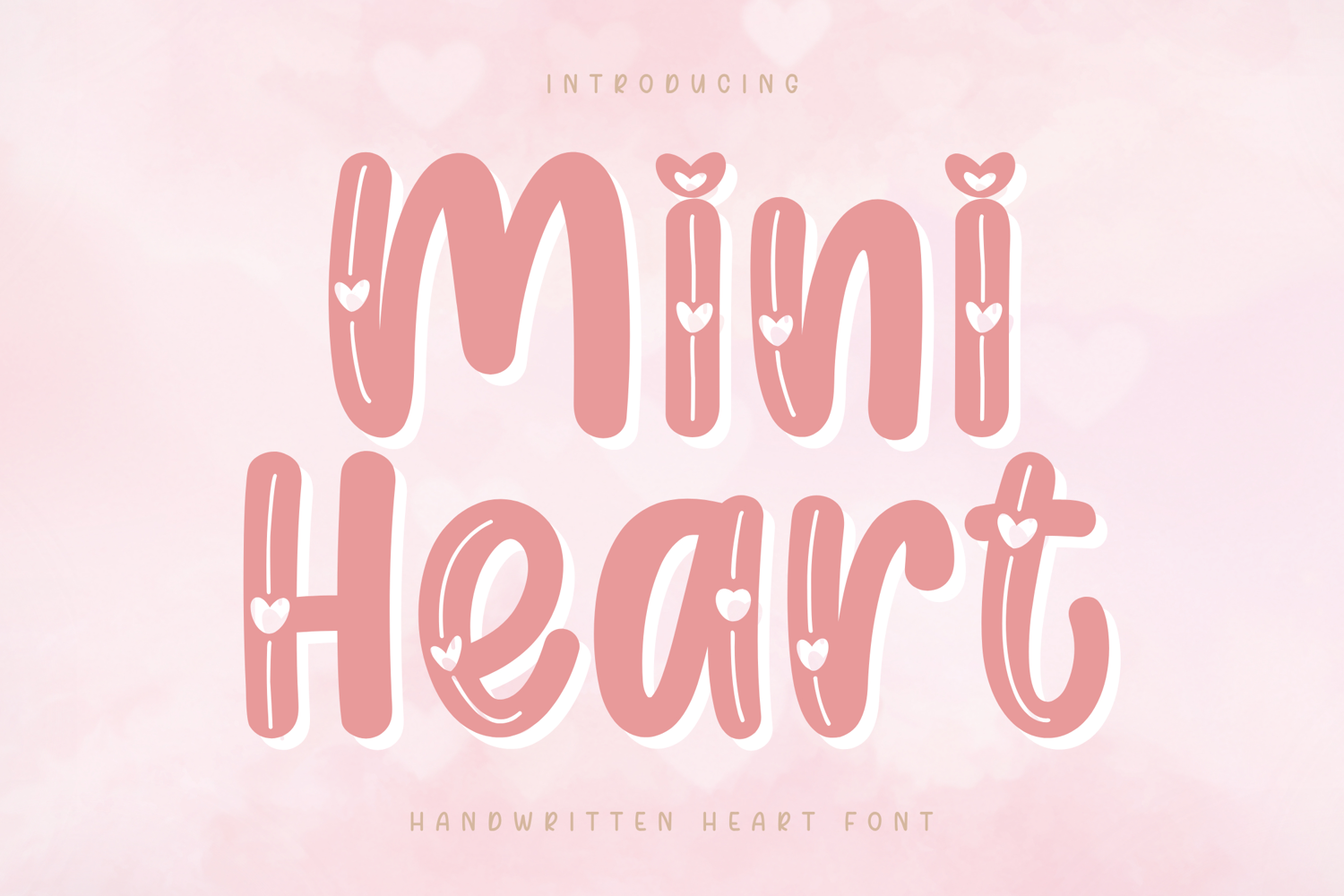
Mini Heart - Handwritten Font
MiniHeart
Mini Heart – Handwritten Heart Font
Mini Heart is a cute and playful handwritten font designed with charming heart details that instantly bring warmth and personality to your designs. Featuring bold, rounded letterforms combined with sweet decorative accents, this font creates a fun and eye-catching handwritten style.
With its unique heart elements integrated into each character, Mini Heart is perfect for projects that need a lovable and expressive touch. It works beautifully for Cricut designs, stickers, Valentine-themed products, and cute merchandise, while still maintaining clear readability.
Full set of uppercase and lowercase letters
Numerals, punctuation, and symbols
Mini Heart is designed with bold, rounded strokes and decorative heart accents, making it perfect for fun, playful, and eye-catching designs.